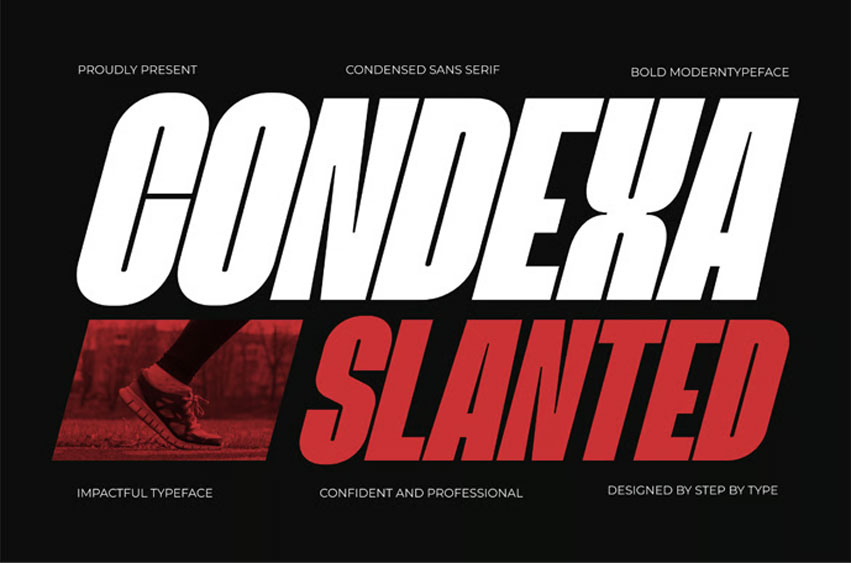
Condexa Slanted Font is the bold, dynamic italic version of Condexa — a condensed display sans serif font designed to deliver speed, energy, and attitude.
Its sharp slanted letterforms add a sense of forward motion and urgency that makes every headline feel alive and powerful.
Perfect for projects that need an extra edge — from sports branding and racing graphics to music, streetwear identity, and editorial design.
✦ PERFECT FOR • Sports branding & event posters • Racing & automotive design • Music artist branding & album covers • Editorial & magazine layouts • Logo & headline typography • Social media headers & thumbnails • YouTube thumbnails & digital ads • Display signage & banners